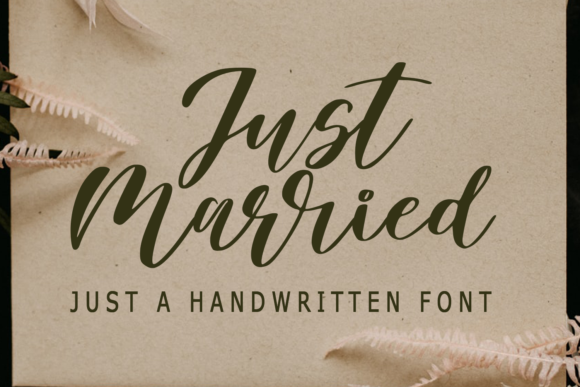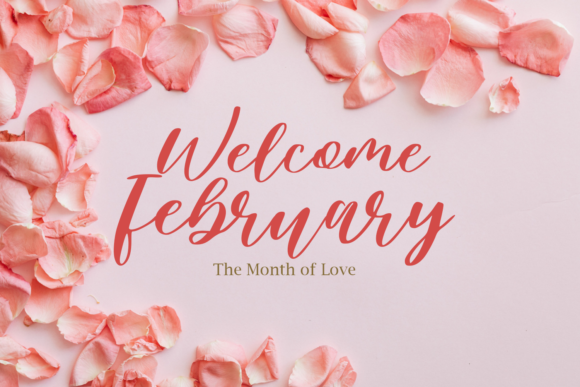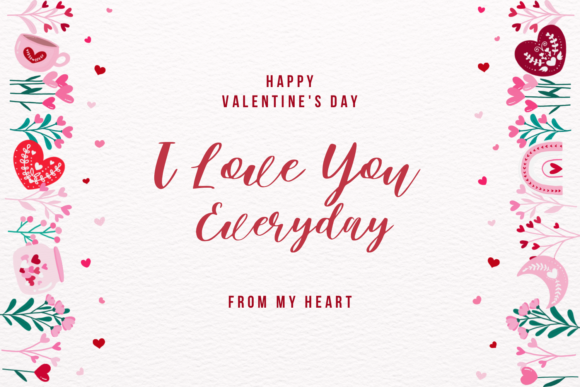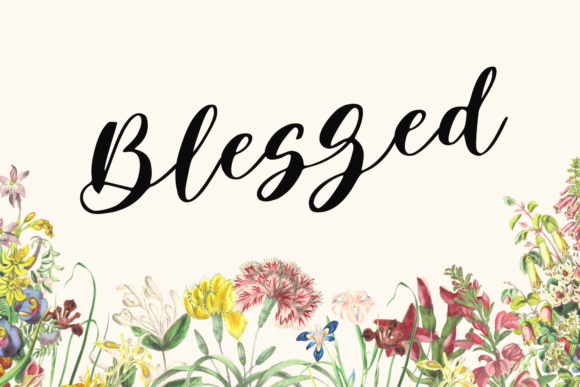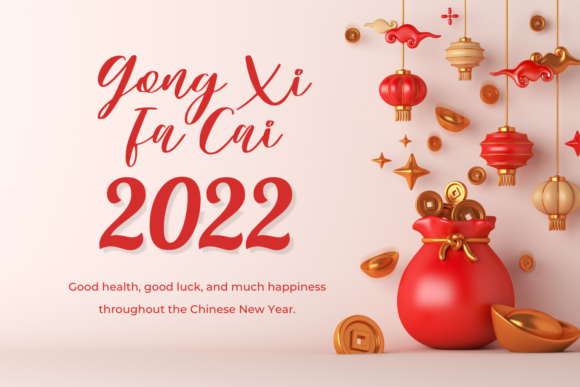
About Just Married Font
Just Married is a trendy paint brushed script font. It can easily be matched to an incredibly large set of projects, so add it to your creative ideas and notice how it makes them stand out. This font is PUA encoded which means you can access all of the glyphs and swashes with ease!